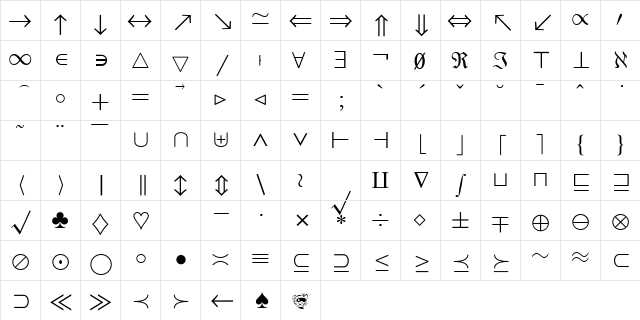
blsy Regular
Design Context for blsy Typeface
blsy takes a measured approach to typography — its balanced proportions and neutral character make it a reliable workhorse for both digital and print work.